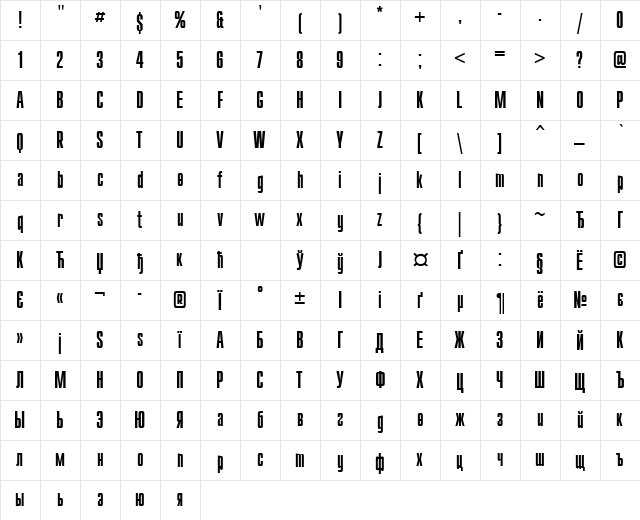
FT Content Provider Regular
Design Context for FT Content Provider Typeface
FT Content Provider is a composed and adaptable typeface that performs quietly and consistently across a wide range of design contexts.